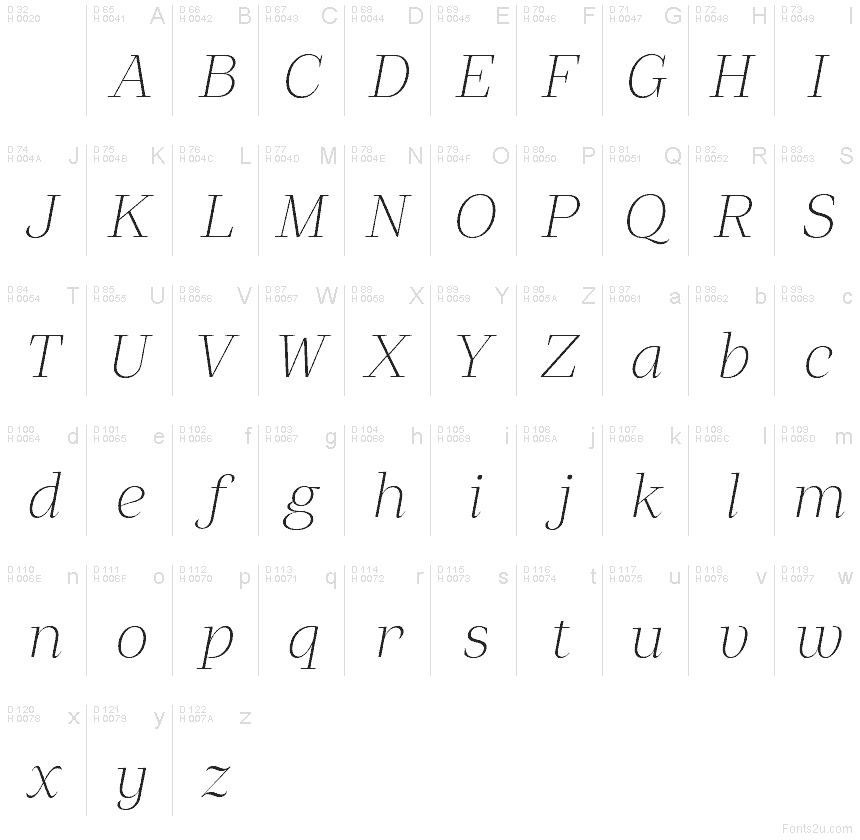
Klimaks Demo Italic
Klimaks Italic font by Kereatype Studio is a graceful, light serif font that merges elegance with modern aesthetics. Its sophisticated design is emphasized by refined curves and high contrast between thick and thin elements, creating a visually appealing style that’s ideal for projects requiring a touch of class.